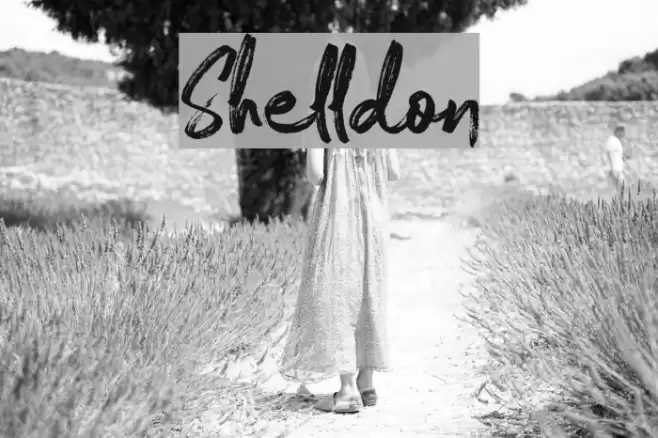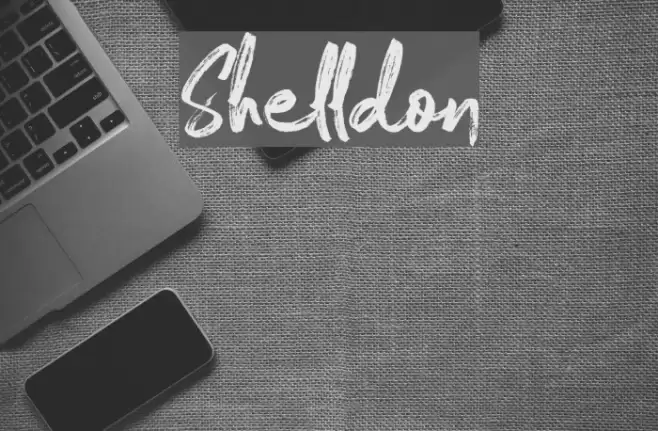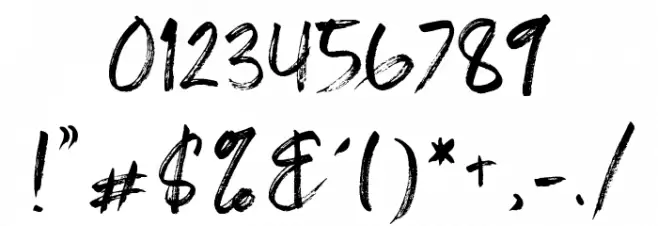
Shelldon Font
Shelldon Description
This font features a dynamic and expressive brush script style, characterized by its bold, sweeping strokes and textured appearance. The letters exhibit a hand-painted quality, with varying thickness and a slightly rough edge that adds to its artistic flair. The uppercase and lowercase letters are well-balanced, maintaining a consistent flow that enhances readability despite its decorative nature. Numbers and special characters follow the same stylistic approach, ensuring a cohesive look across all glyphs. This font's energetic and informal style makes it ideal for creative projects that require a personal touch.
A bold, brush script font with a textured, hand-painted look from Uncategorized fonts.
- Proposed Projects: Ideal for branding, posters, invitations, and social media graphics where a personal and artistic touch is desired.